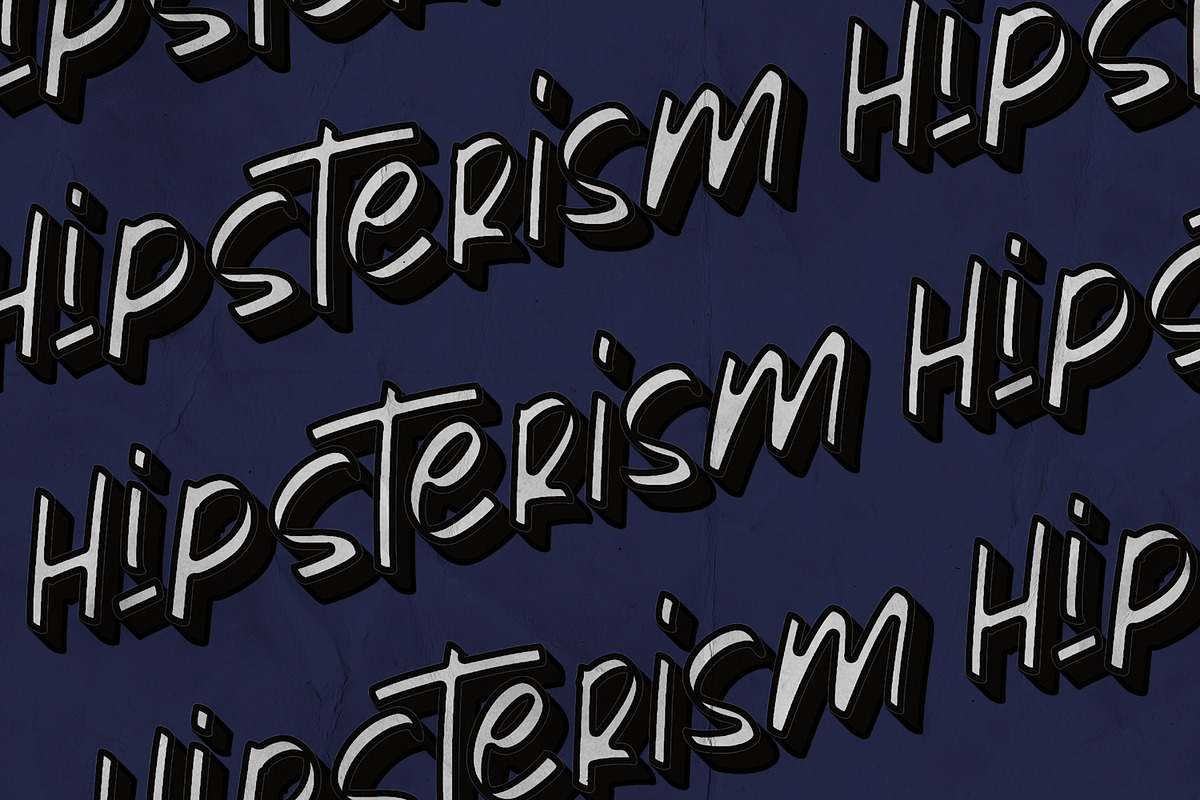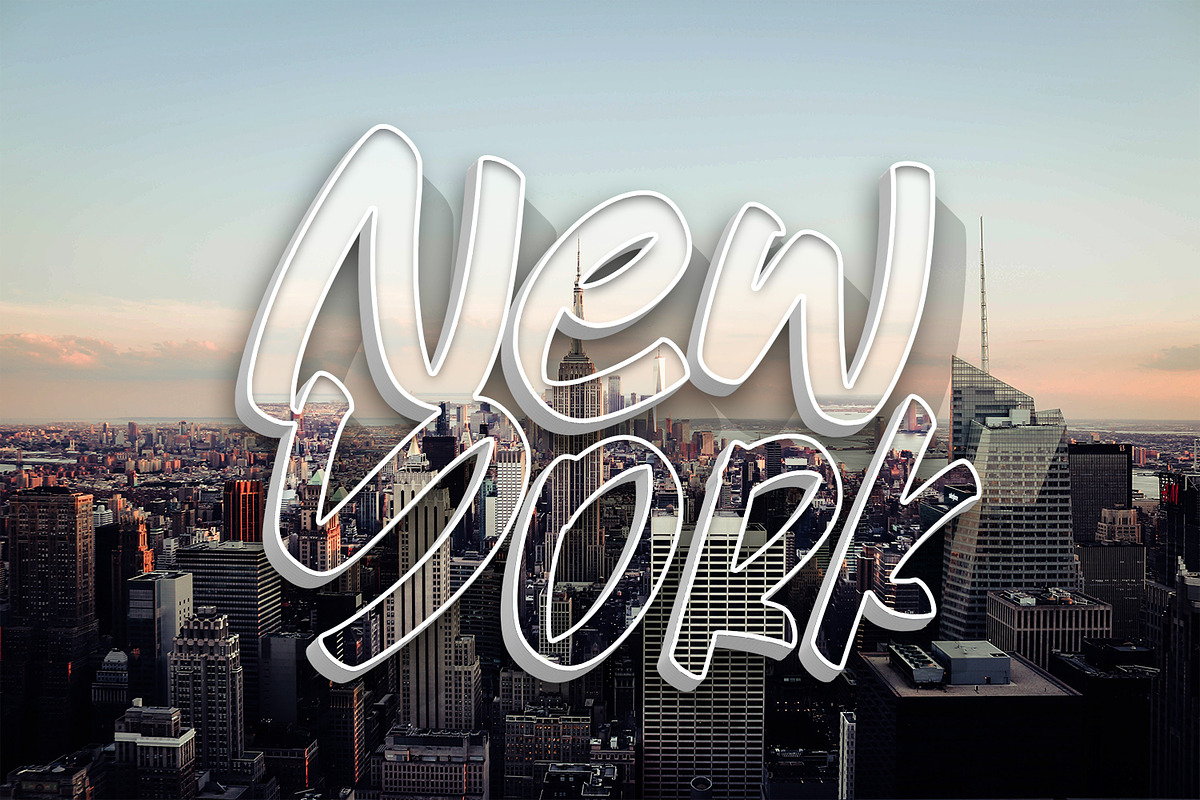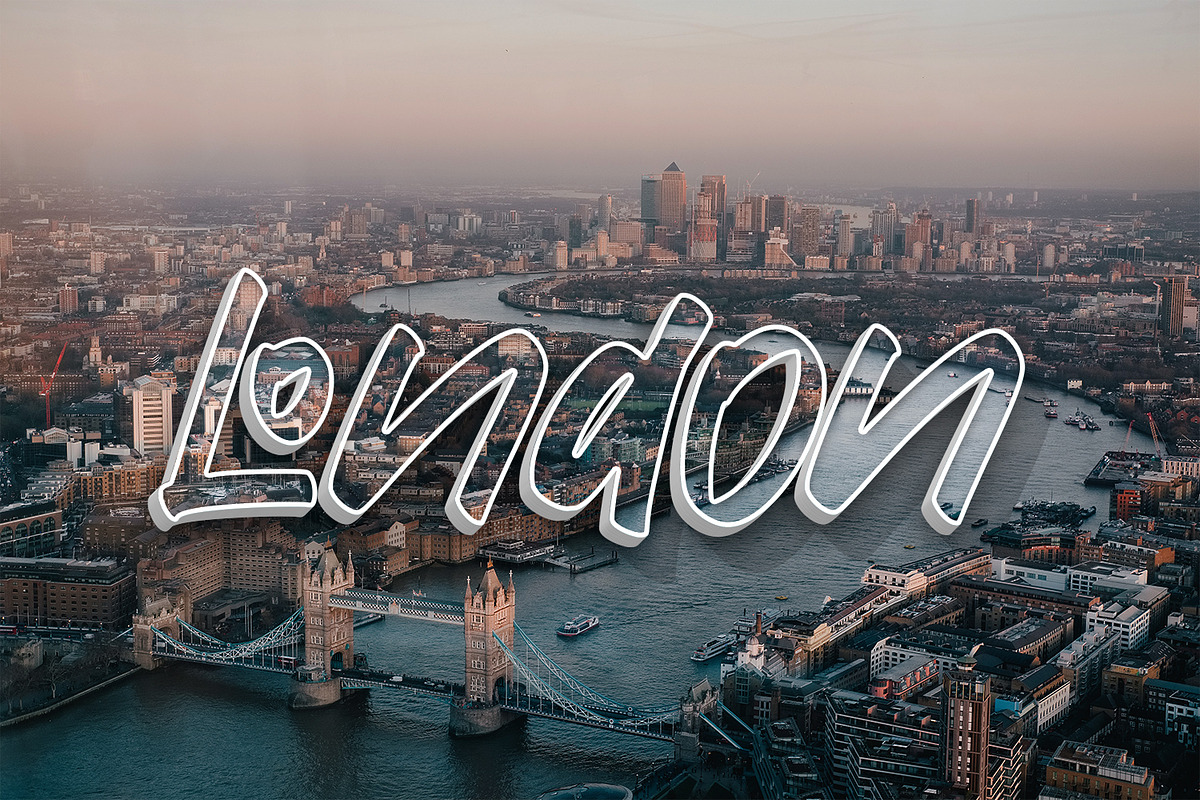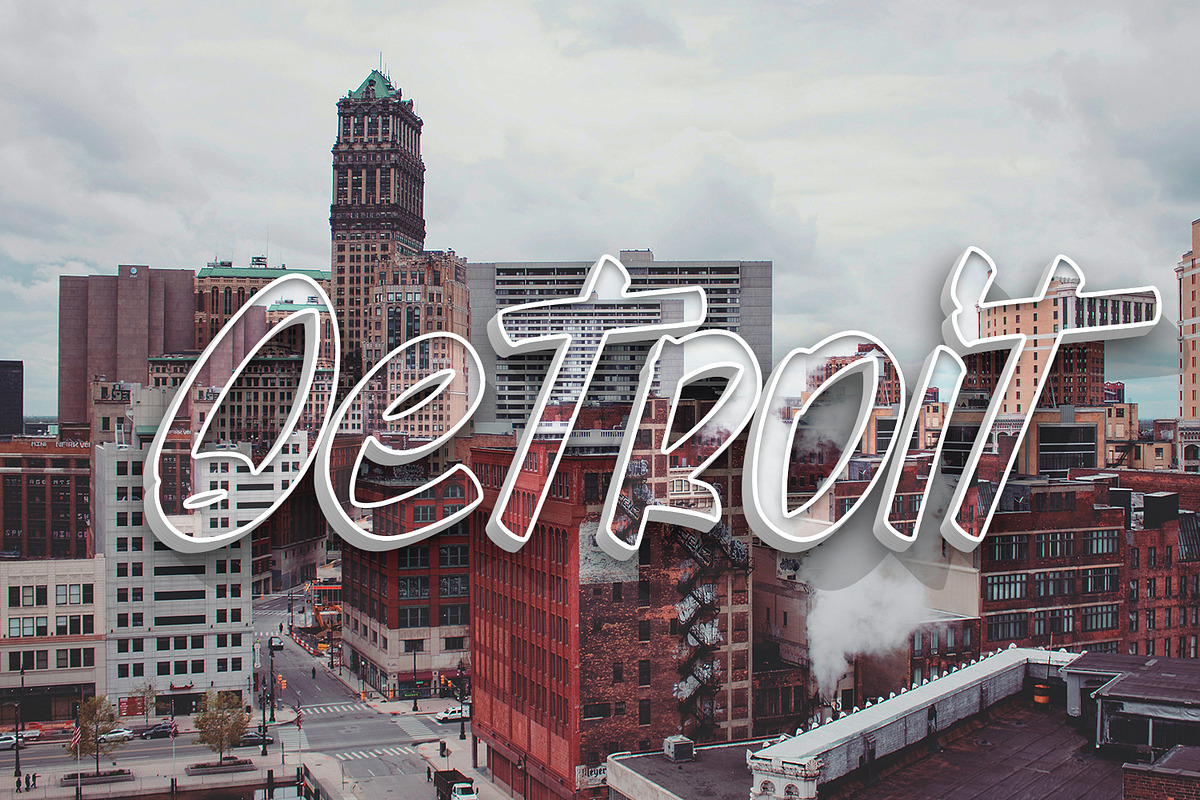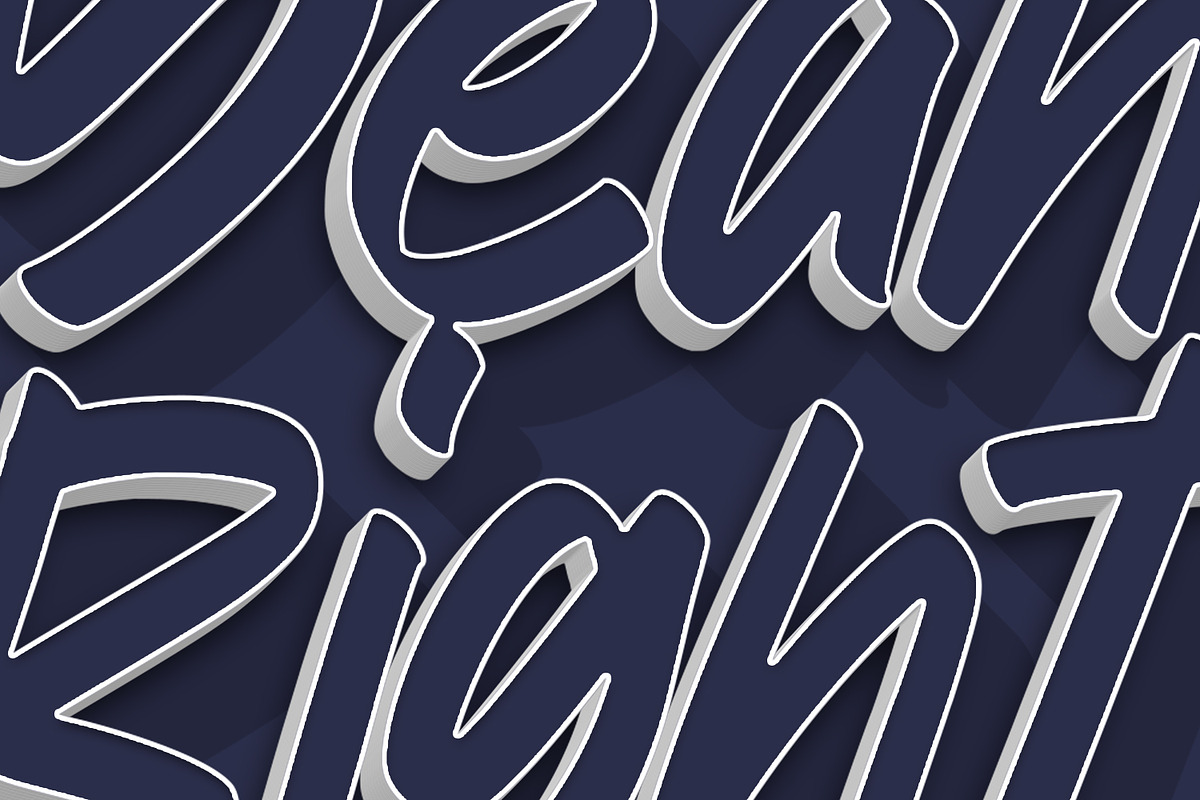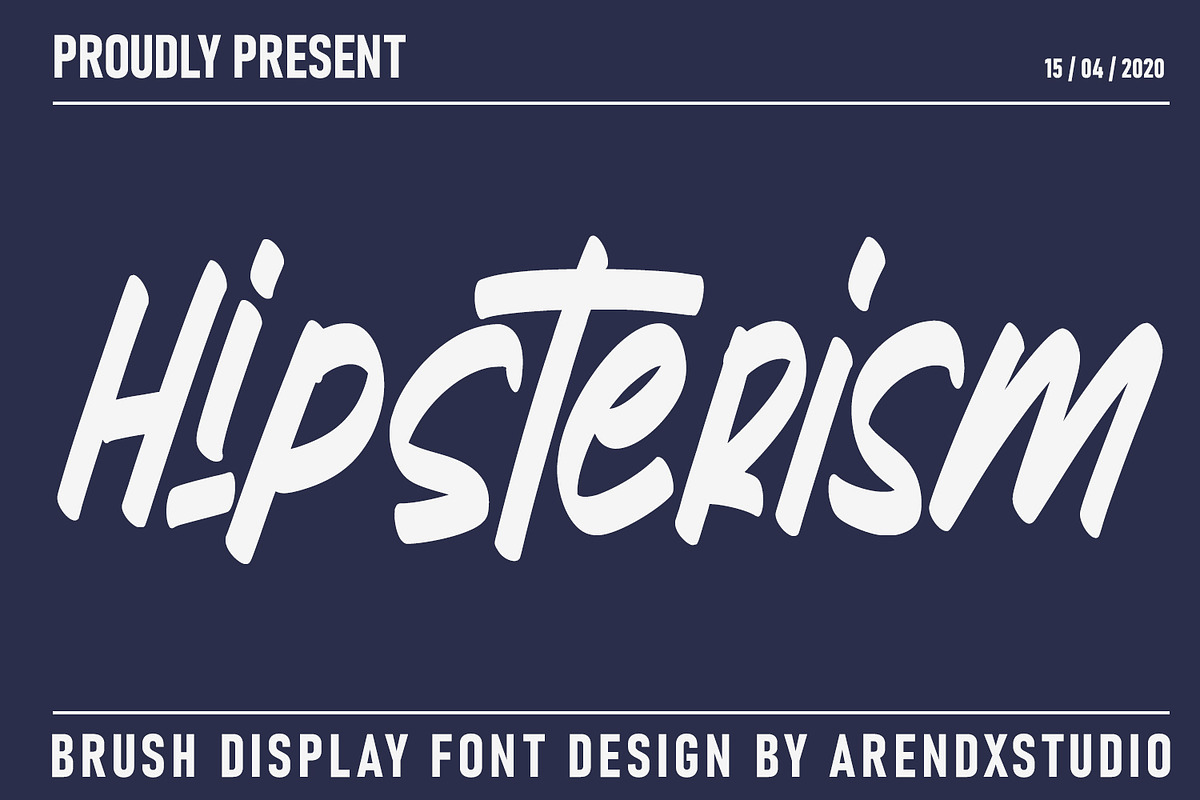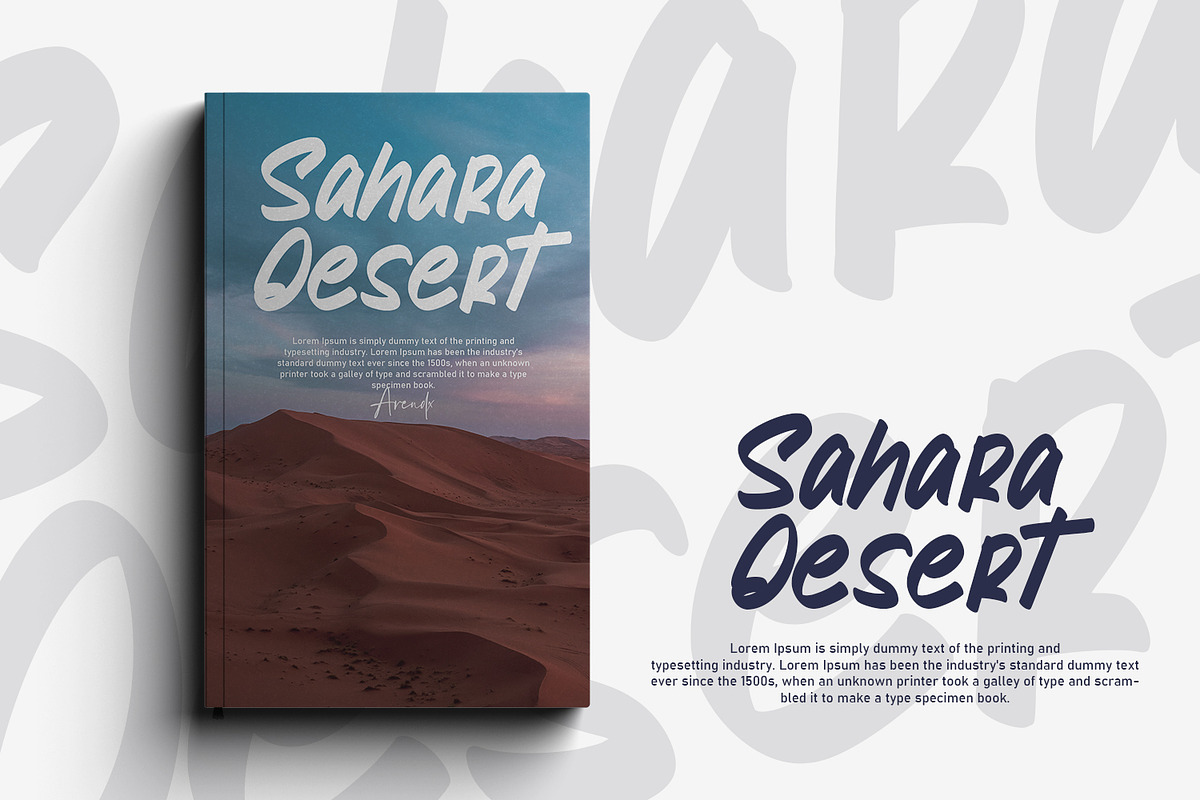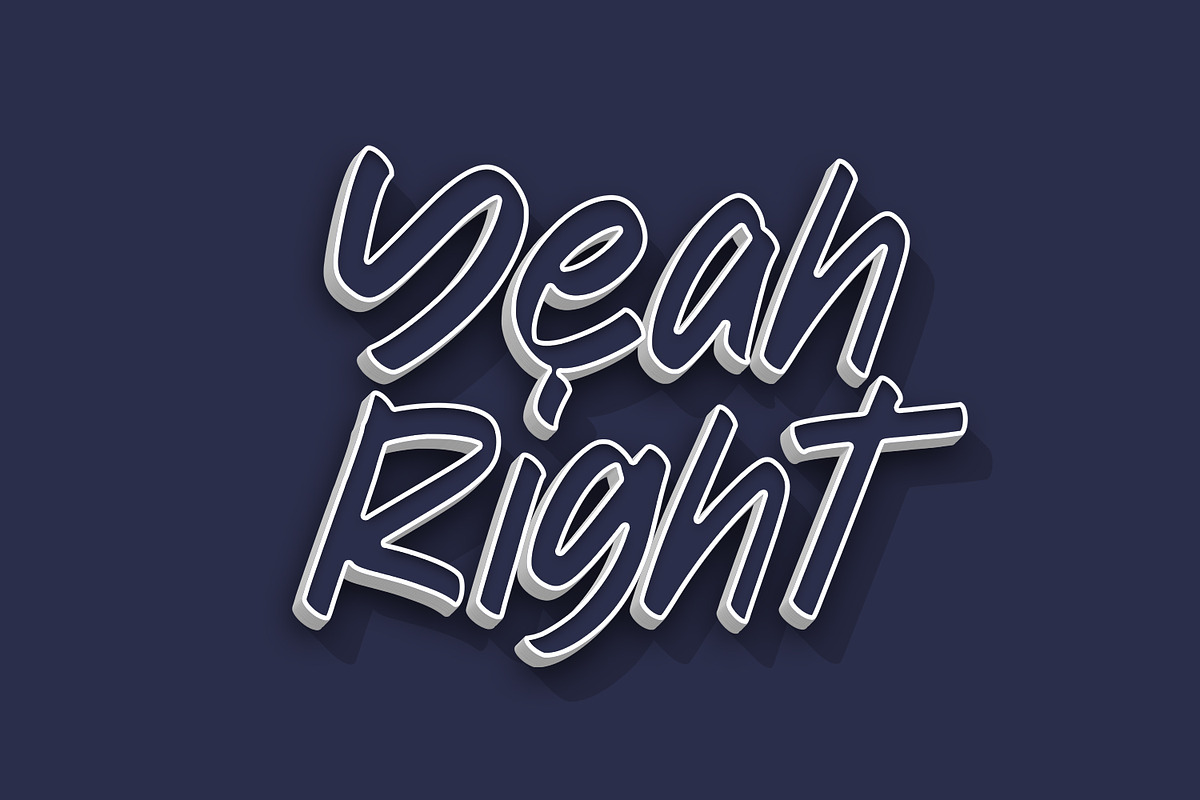
Hipsterism - Display Font
Hipsterism is a bold Display Font with its distinctive character that can be easily implemented in your various design projects . Hipsterism came with opentype features such stylistic alternates, stylistic sets & ligatures good for logotype, poster, badge, book cover, tshirt design, packaging and any more.